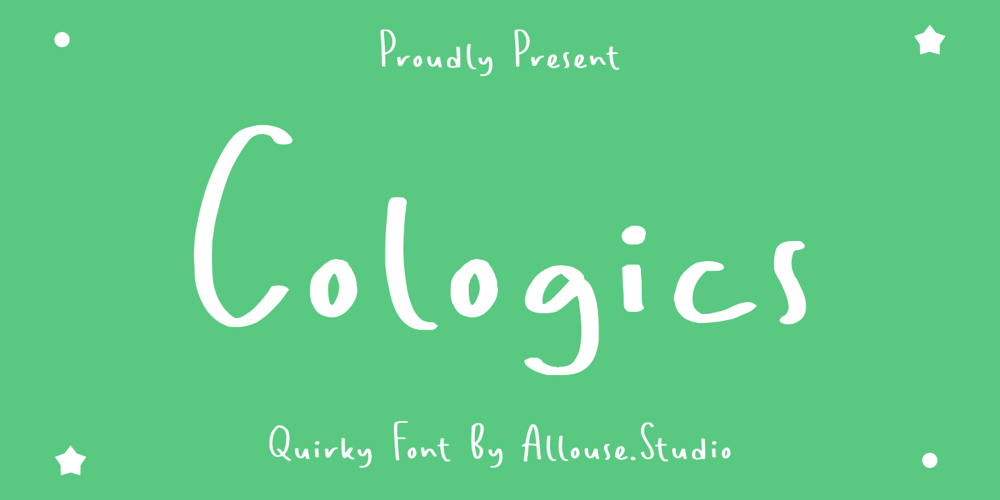
Cologics
Cologics font
Cologics Font Family was designed by Fachrizal Yusuf and published by Allouse Studio. Cologics contains 1 styles and family package options. Cologics a Quirky Font which will give you mood impression..Cologics wome along with Multi-Lingual Support to fulfill your need.We highly recommend using a program that supports OpenType features and Glyphs panels like many of Adobe apps and Corel Draw, so you can see and access all Glyph variations.Cologics is perfect for any tittle, lyrical video music, logo, product packaging, branding project, megazine, social media, wedding, or just used to express words above the background.Enjoy the font, feel free to comment or feedback, send me PM or email. Thank You!